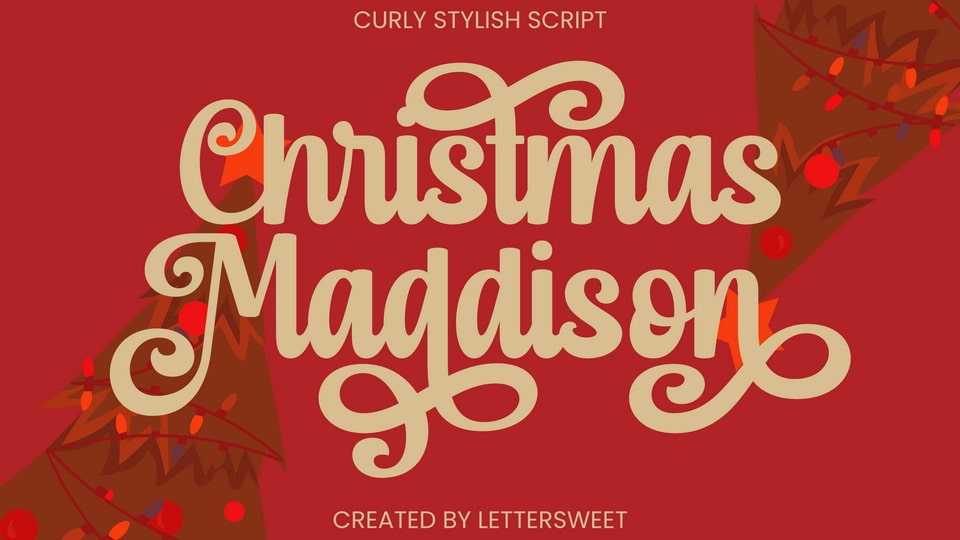
Download Christmas Maddison font, a beautiful and romantic handwritten typeface. It looks amazing on thank you cards, quotes, wedding invitations, greeting cards, business cards, logos, and any other design that requires a touch of handwriting.